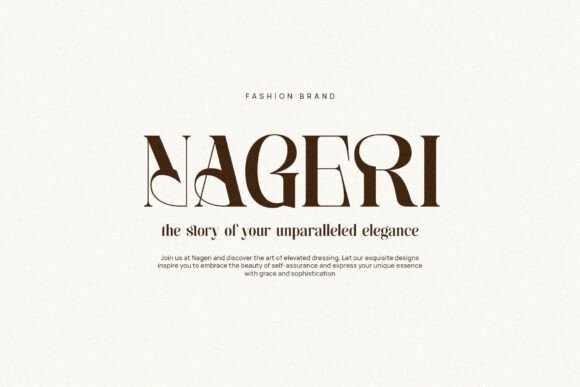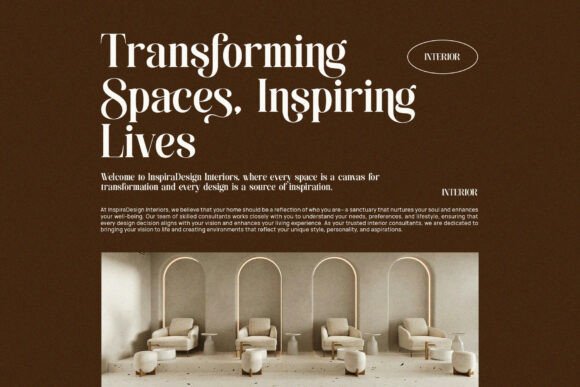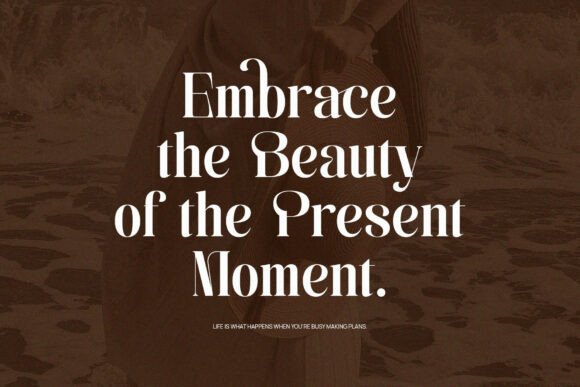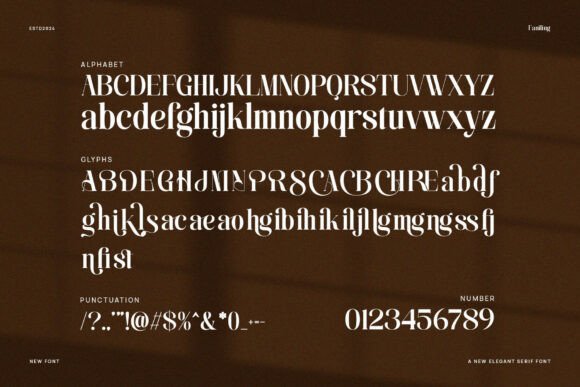
Introduction to Faniling Font
Do you remember that moment when you stumbled upon the perfect font for your creative project? The one that made all your design elements come together in perfect harmony? For many designers, this moment is a game-changer. It’s the difference between a good design and an exceptional one. And today, we’re excited to share with you a design resource that will make your creative heart skip a beat – the Faniling Font.
This elegant and bold serif font is a high-quality addition to any designer’s toolkit. With its incredibly versatile style, you can use it to create gorgeous wedding invitations, beautiful stationery art, eye-catching social media posts, and much more. And the best part? You can download it for free, making it an accessible design resource for creative projects of all kinds. Whether you’re working on a personal or professional project, the Faniling Font is sure to elevate your design to the next level.
So why is the Faniling Font so valuable for designers? For one, its transparent background makes it easy to customize and combine with other design elements. Plus, its elegant and bold style ensures that your designs will stand out from the crowd. With the Faniling Font, you’ll be able to bring your creative vision to life with confidence and precision.
Key Features of Faniling Font
- Transparent background, allowing for seamless integration with any design
- Features a unique and stylish design, making it perfect for adding a touch of elegance to any creative project
- Perfect for use in graphic design, digital art, and other creative projects where a high-quality font is essential
Honest Review: Faniling Font
As a designer, I’m always on the lookout for high-quality design resources to elevate my creative projects. The Faniling Font is one such resource that caught my attention. After giving it a try, I’m excited to share my honest review with you.
- Transparent background: The font’s transparent background makes it easy to use in various design scenarios, from graphics to web design.
- Clean and modern design: The font’s clean and modern design makes it perfect for creative projects that require a sleek and sophisticated look.
- Limited character set: I found that the font’s character set is limited, which might be a drawback for designers who need to use a wide range of characters in their projects.
- No bold or italic variants: I missed having bold and italic variants of the font, which can add more depth and variety to a design.
Overall, the Faniling Font is a solid design resource that can be a great addition to any designer’s toolkit. While it has some limitations, its clean and modern design makes it a great choice for creative projects that require a sleek and sophisticated look.
The Faniling Font is perfect for creative projects such as logos, branding, and marketing materials. You can also use it for presentations, documents, and social media graphics.